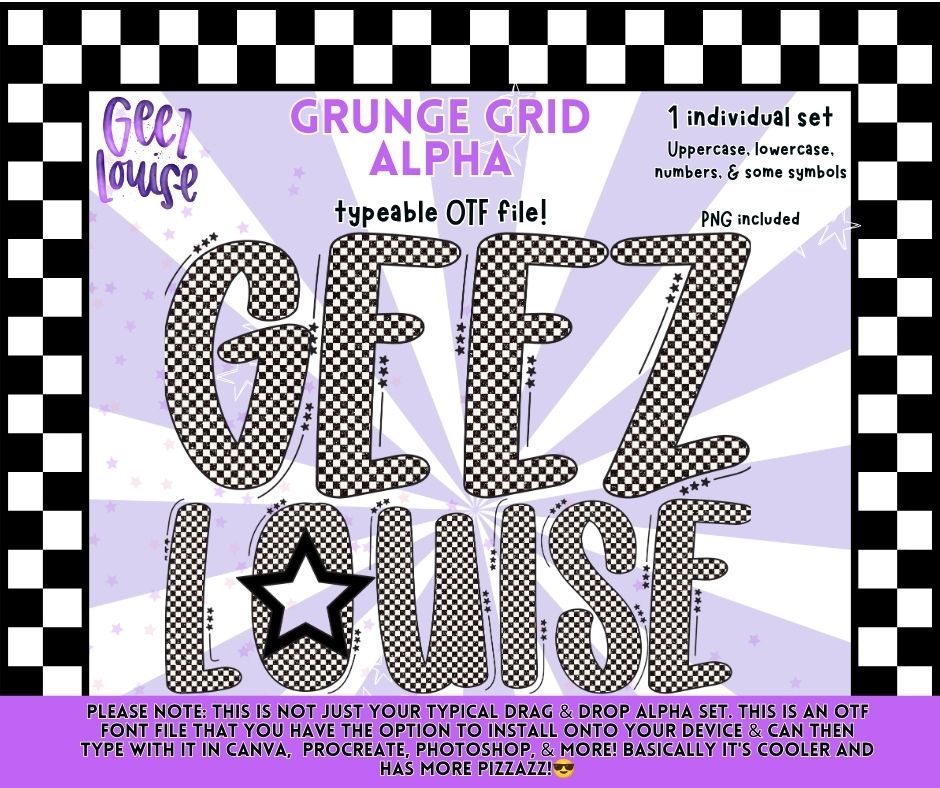
Grunge Grid Alpha Font OTF | Black Checker Alphabet PNG | Distressed Retro Font | Typeable Font
🖤⚡ Give your designs an edgy, vintage-inspired look with Grunge Grid Alpha! This bold typeable font features a tiny black-and-white checker pattern with a distressed grunge aesthetic that's perfect for trendy apparel, retro graphics, sports designs, and boutique branding.